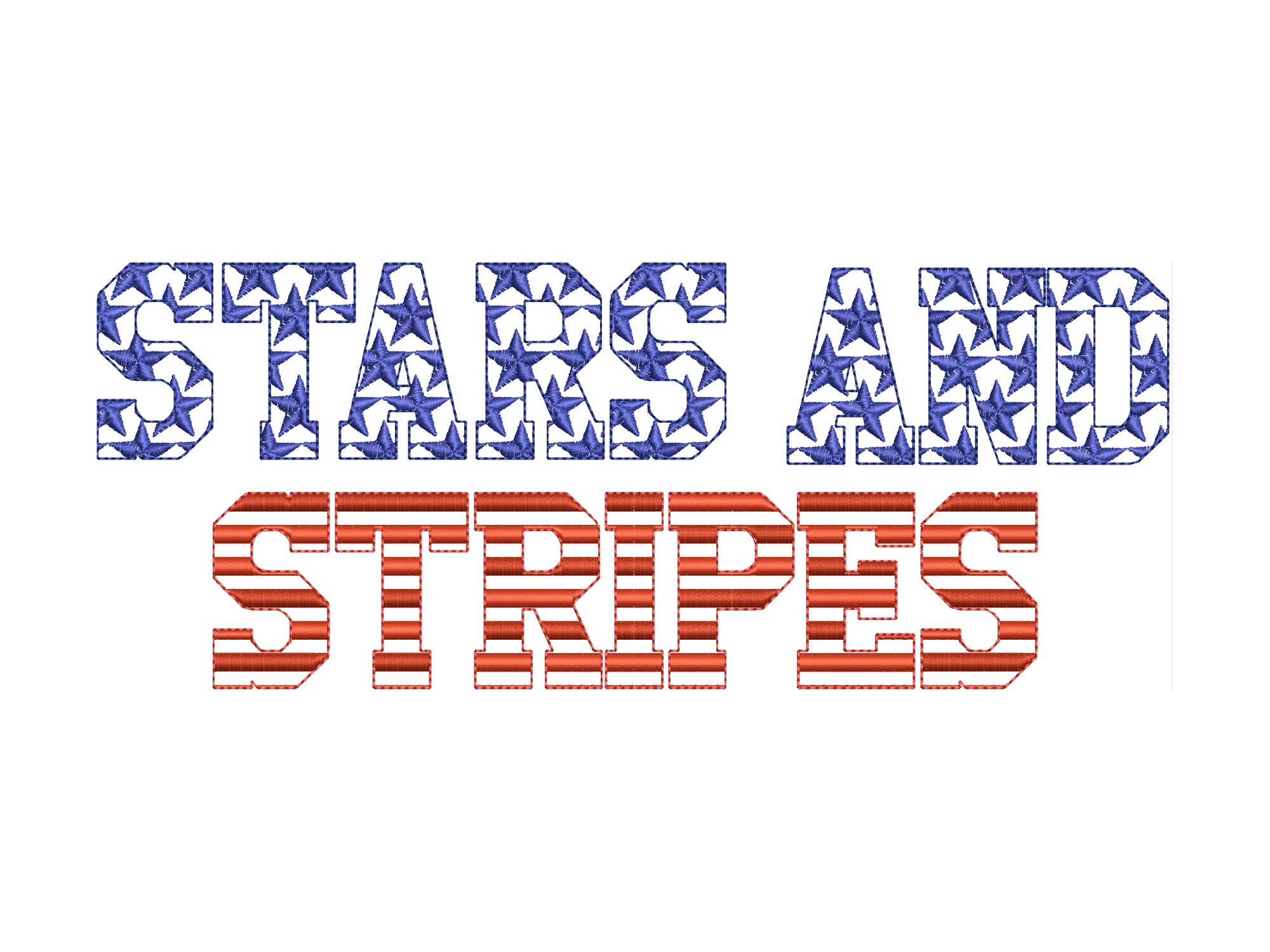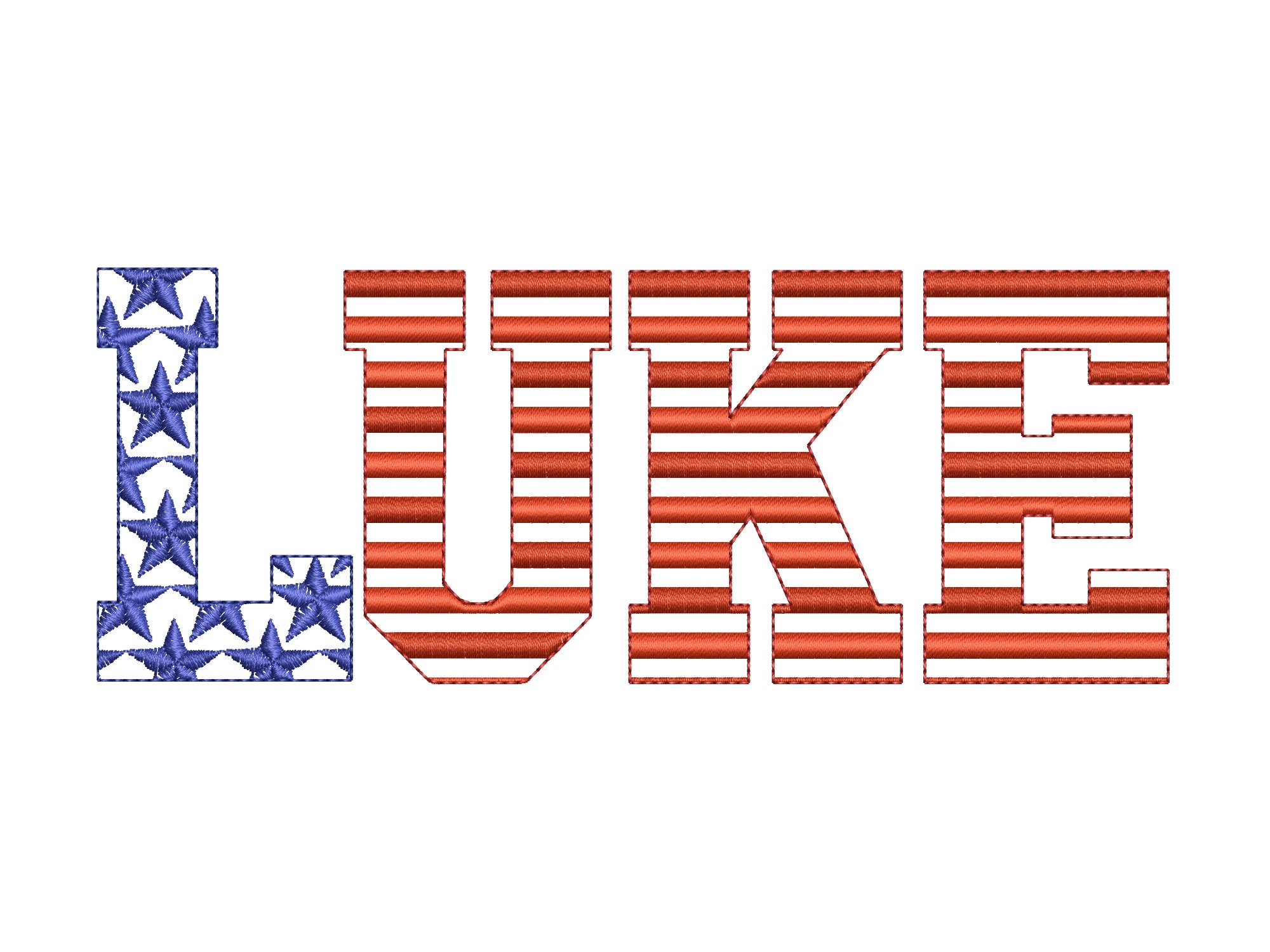
Stars and Stripes Fonts 2 types machine embroidery designs SET of 2 alphabet letters assorted sizes gorgeous 4th July Independence celebrity
Included 2 fonts in matching sizes.
You may combine starred and striped letters as you please.
Uppercase A-Z and numbers 0-9